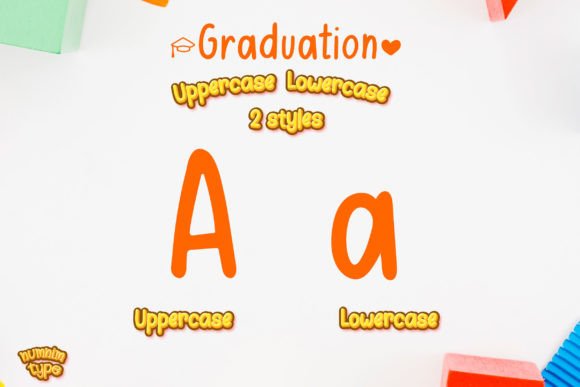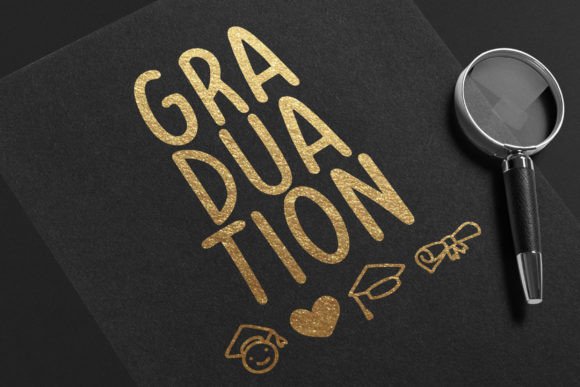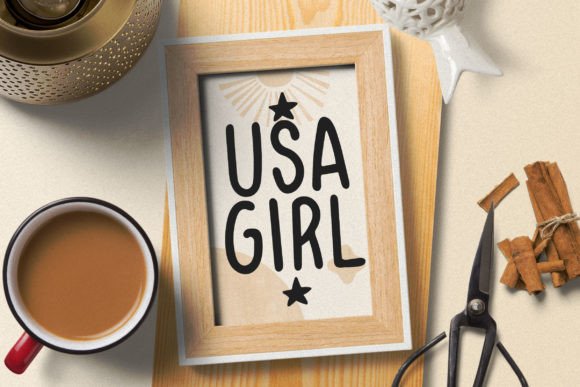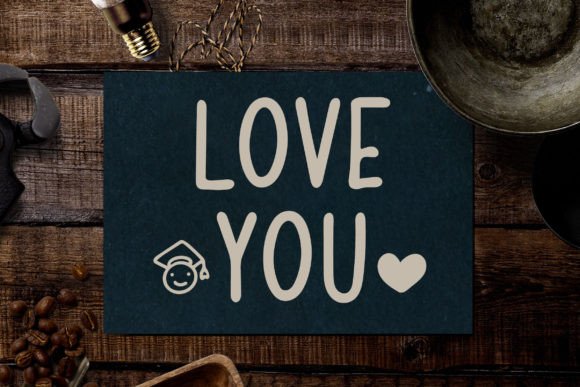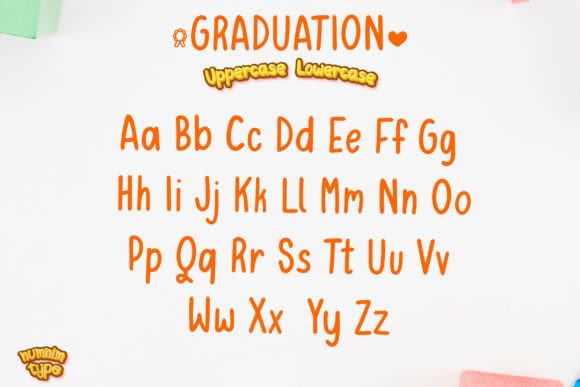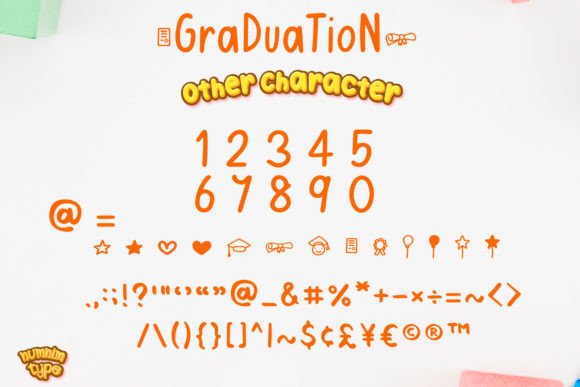
Introducing Graduation Font: The Perfect Handwritten Font for Joyful Designs
Are you looking for a font that captures the excitement and joy of graduation celebrations? Look no further than Graduation Font, a handwritten font designed to bring a vibrant and playful feel to your designs. With its fun and playful characters, Graduation Font is the perfect choice for a wide range of creative projects, from stickers and mugs to t-shirts, ornaments, and graduation day event cards.
What Makes Graduation Font So Special?
Graduation Font is more than just a beautiful handwritten font – it’s also highly versatile and easy to use. The font is PUA encoded, which means that you can easily access all glyphs and swashes with just a few clicks. This makes it simple to add a personal touch to your designs and create unique and eye-catching projects that stand out from the crowd.
Whether you’re a professional designer or a crafter looking for a fun and creative way to express yourself, Graduation Font is the perfect choice. The font’s playful and joyful feel makes it ideal for a wide range of projects, from:
- Stickers and labels: Add a personal touch to your stickers and labels with Graduation Font’s fun and playful characters.
- Mugs and ceramics: Create one-of-a-kind mugs and ceramics with Graduation Font’s vibrant and joyful feel.
- T-shirts and apparel: Design unique and eye-catching t-shirts and apparel with Graduation Font’s playful characters.
- Ornaments and decorations: Add a touch of personality to your ornaments and decorations with Graduation Font’s whimsical feel.
- Graduation day event cards: Create beautiful and memorable graduation day event cards with Graduation Font’s elegant and playful characters.
Key Features of Graduation Font
Here are just a few of the key features that make Graduation Font so special:
- Handwritten font: Graduation Font is a beautiful handwritten font with a unique and personal feel.
- Vibrant and joyful feel: The font’s playful and joyful feel makes it perfect for graduation celebrations and other happy occasions.
- PUA encoded: Graduation Font is PUA encoded, making it easy to access all glyphs and swashes.
- Fun and playful characters: The font’s fun and playful characters make it perfect for a wide range of creative projects.
Tips for Using Graduation Font
Here are a few tips for getting the most out of Graduation Font:
- Experiment with different colors: Graduation Font looks great in a wide range of colors, so don’t be afraid to experiment and find the perfect hue for your project.
- Mix and match with other fonts: Graduation Font pairs well with a wide range of other fonts, so feel free to get creative and mix and match to find the perfect combination.
- Use it for a variety of projects: Graduation Font is versatile enough to be used for a wide range of projects, from stickers and labels to t-shirts and apparel.